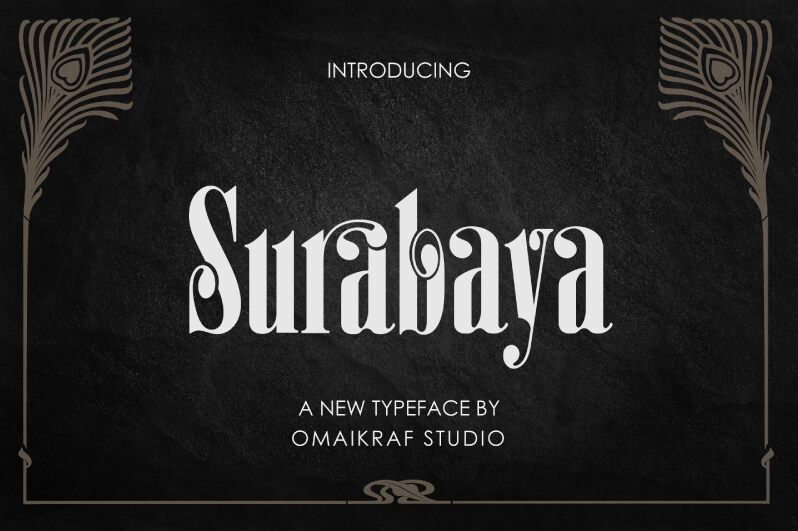
Surabaya is one and only typeface that is built to bring the classic nobility in a modern lifestyle. This font is suitable for branding, films, letterings, occasions, and other related activities.